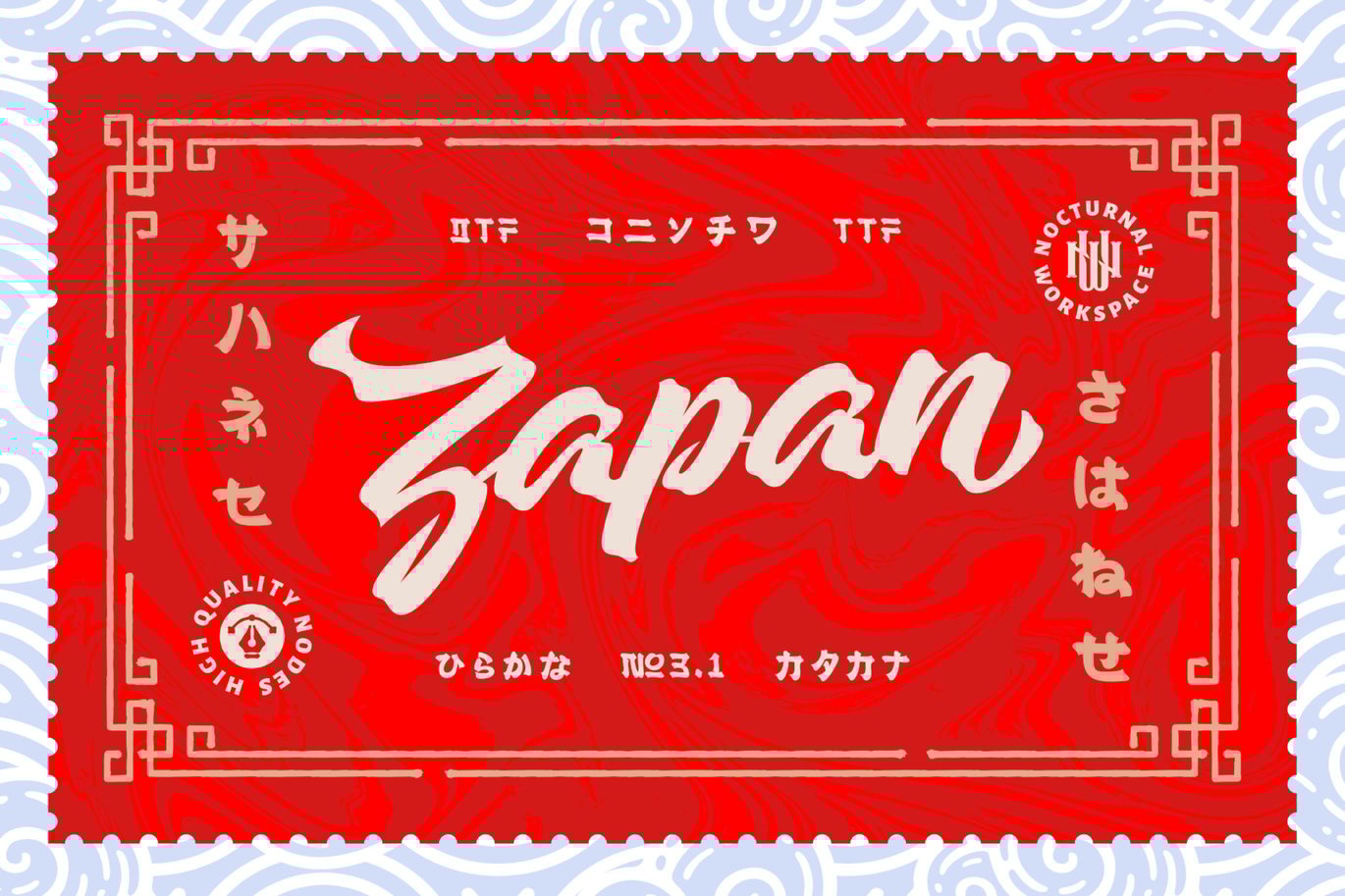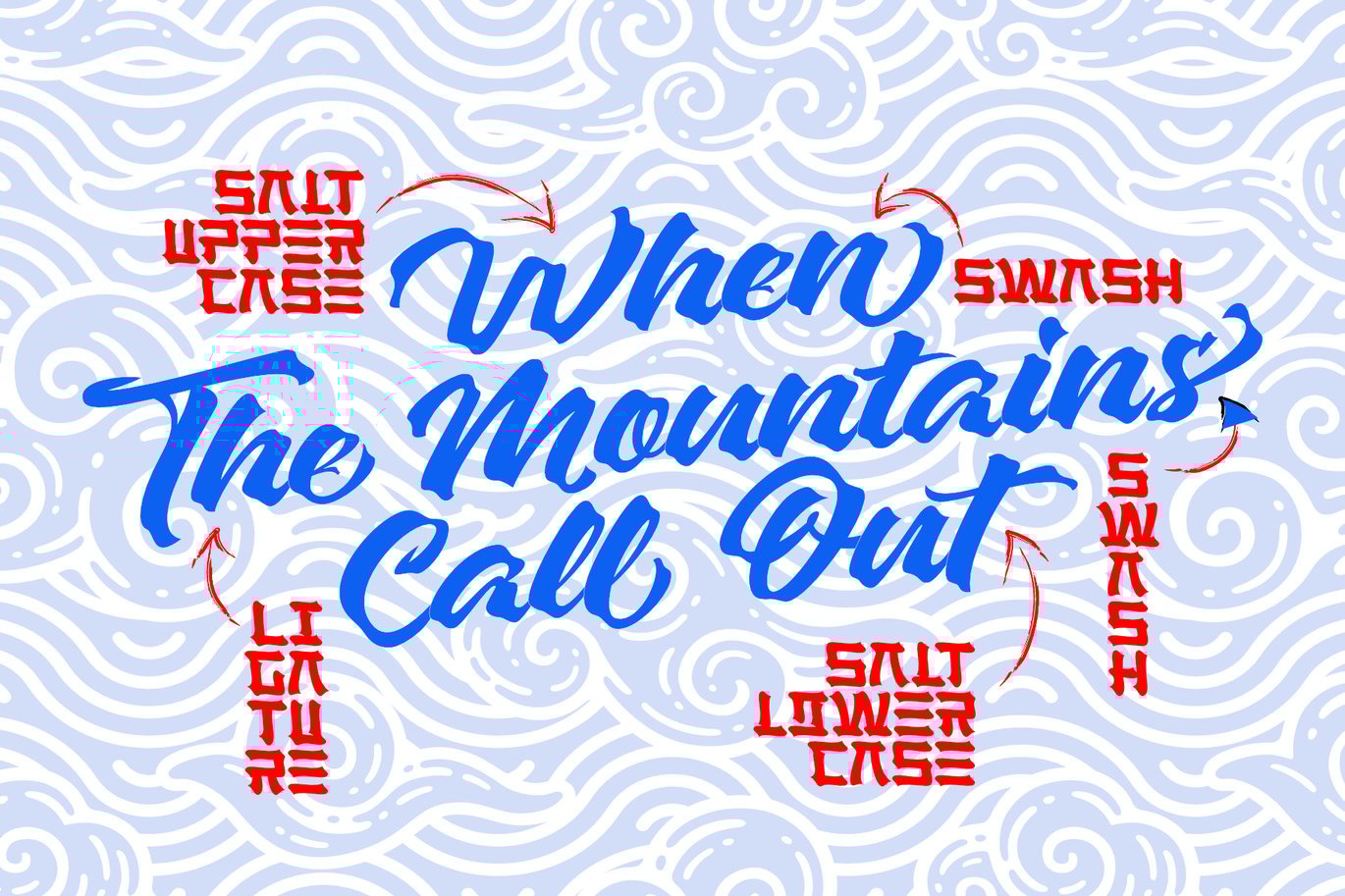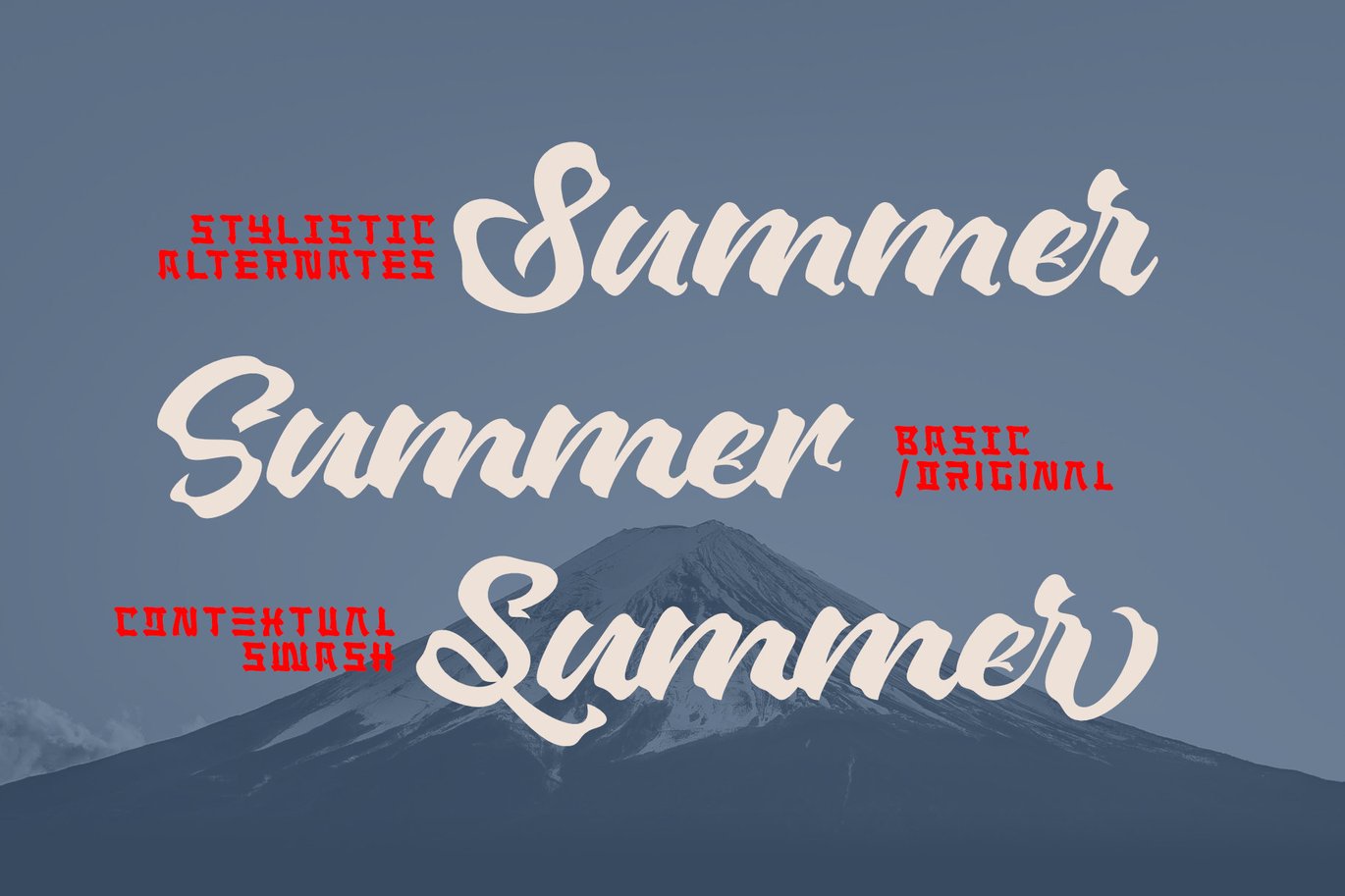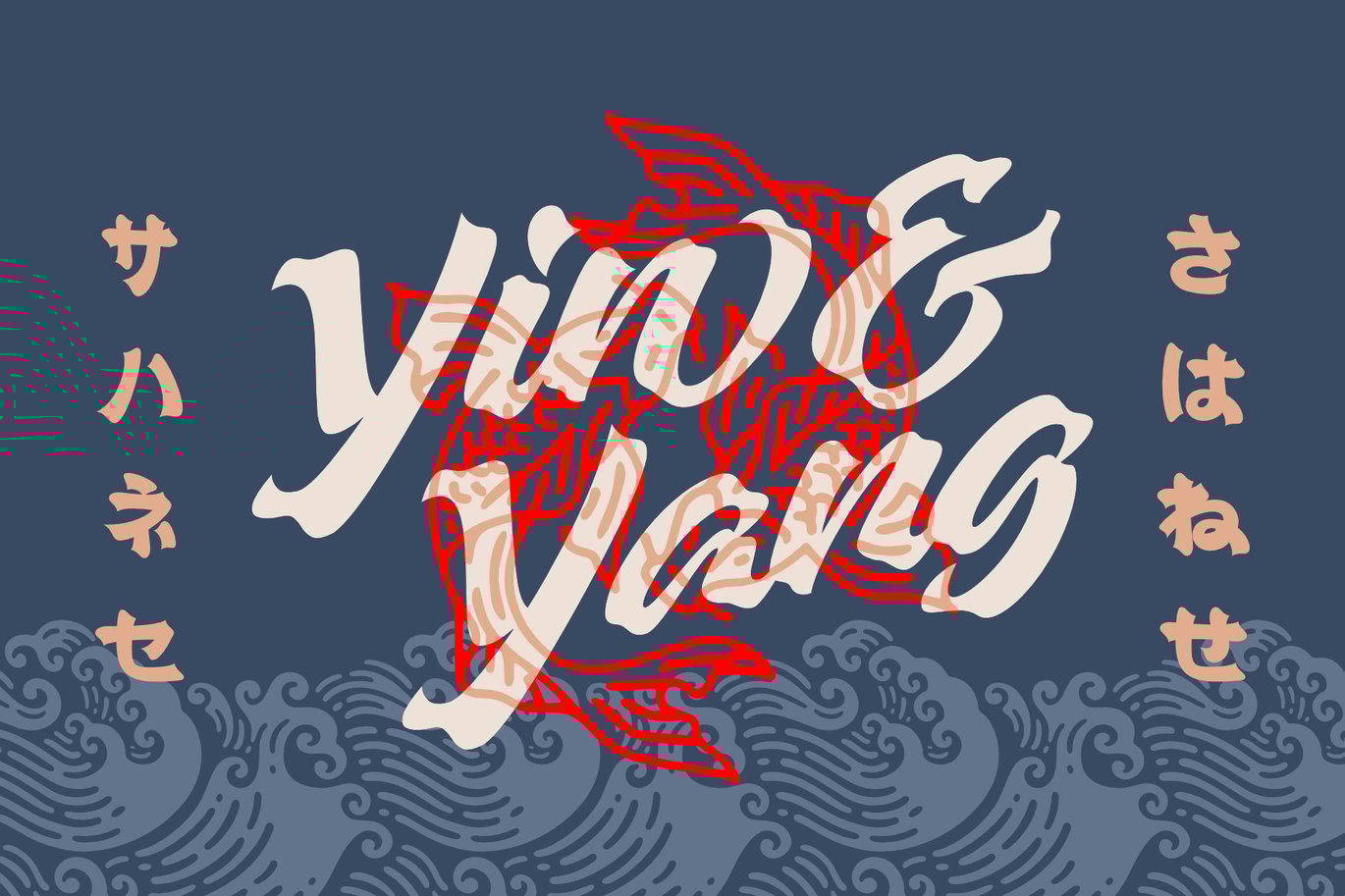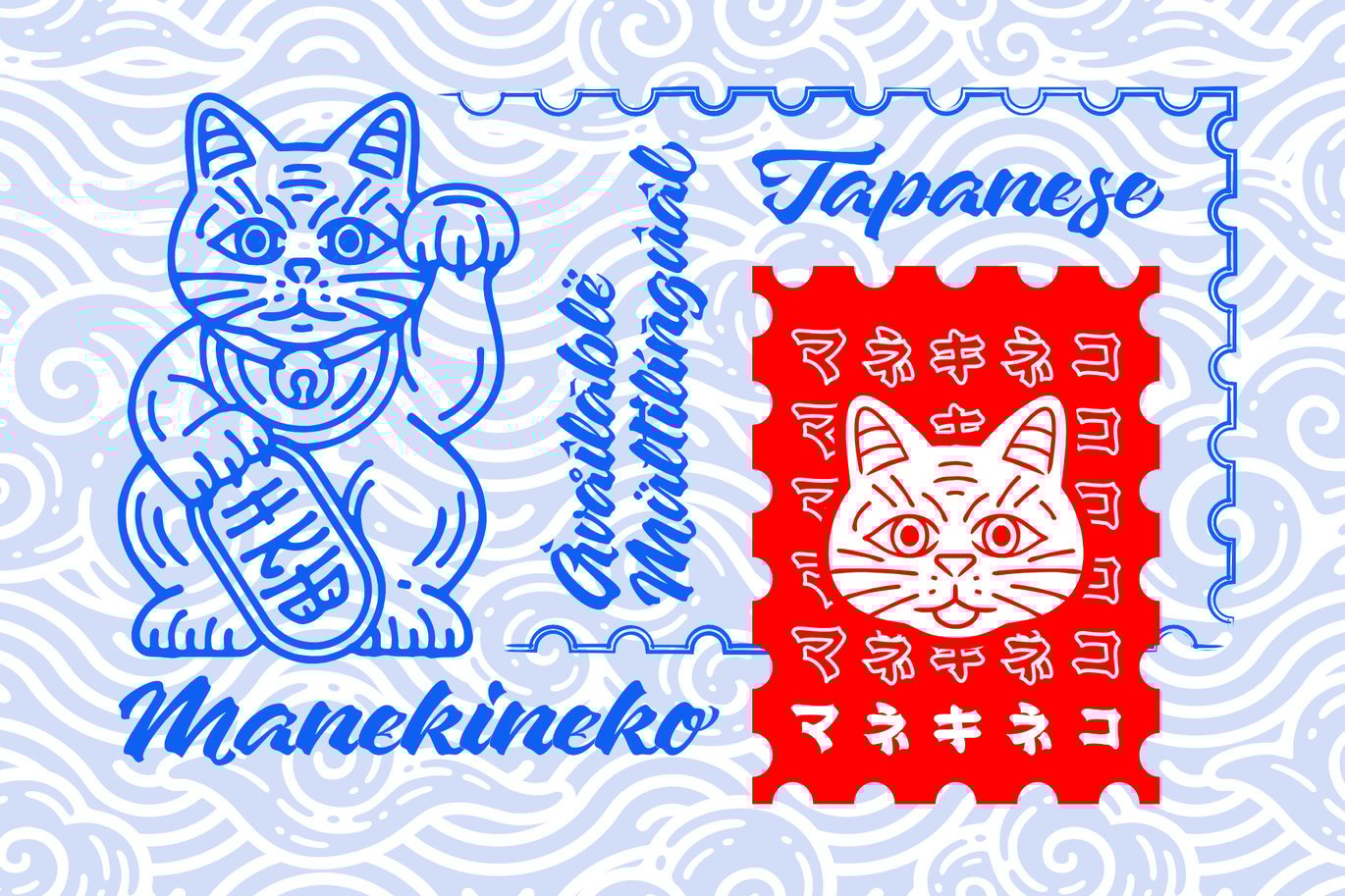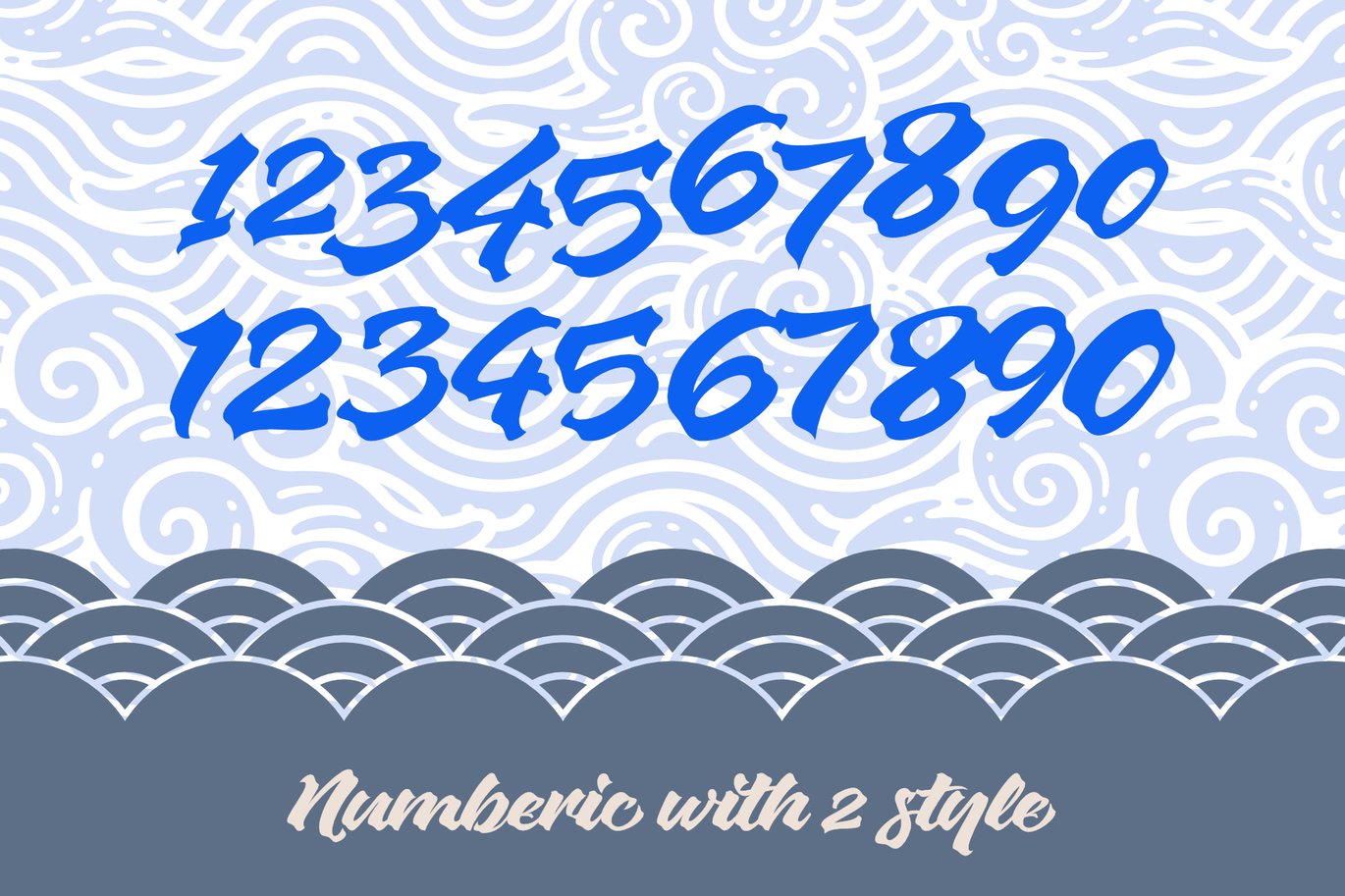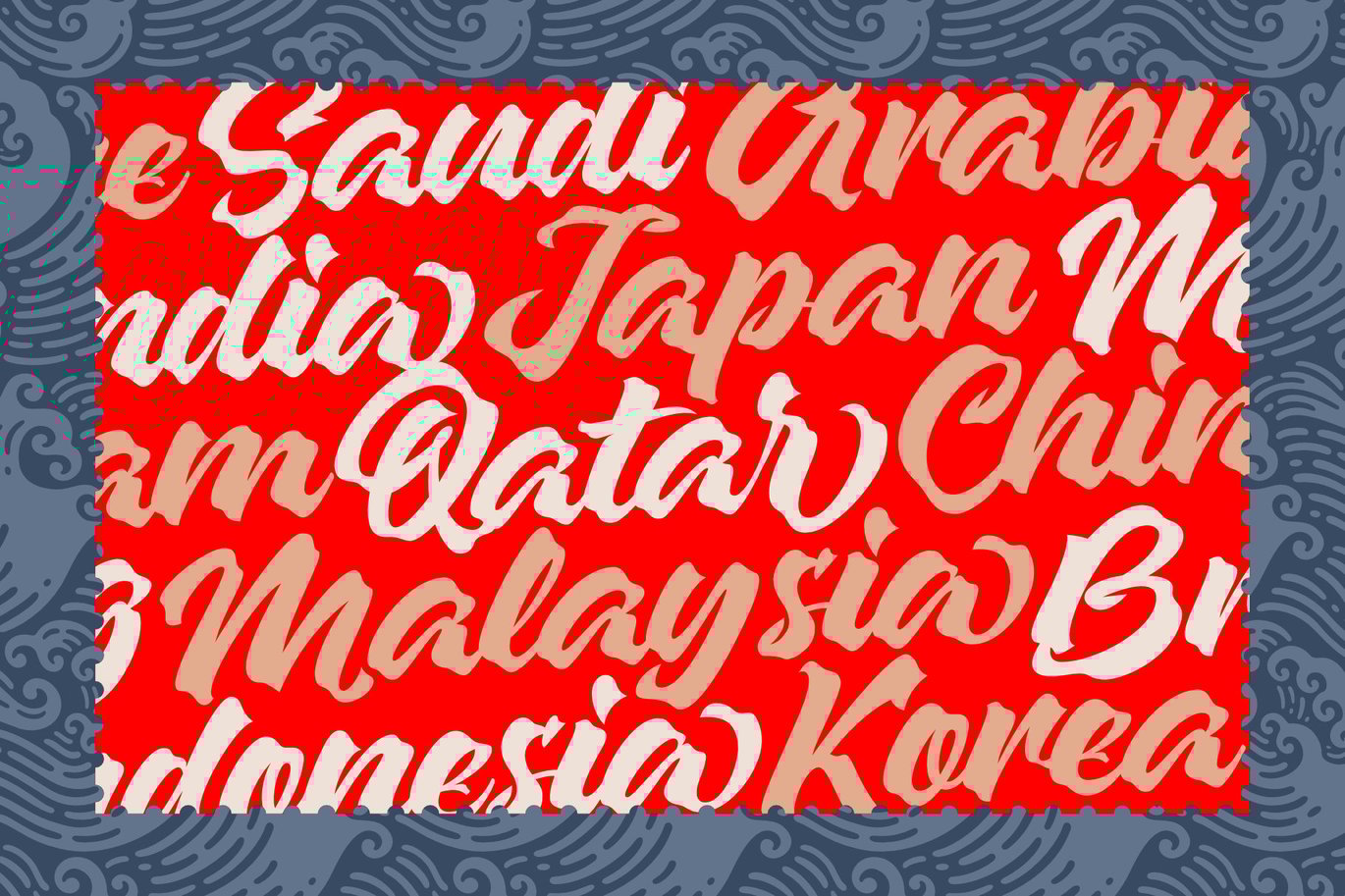
Zapan script font
Zapan Script is made to strengthen the characteristics of Japan or East Asian countries. This font is perfect for designs that need an East Asian touch.
- Zapan comes with 2 filetype (.ttf + .otf), fonts comes with upper and lowercase Standard Characters, Punctuation, Numerals. And other Glyphs variation of the OpenType features such as Standard Ligature, Stylistic Alternate, and Stylistic Set.
I* ncludes a range of multilingual characters.
Zapan Typeface is suitable typeface for various purposes like logotype, signage, label, poster, dropcap, titles, letterhead, book cover and etc.